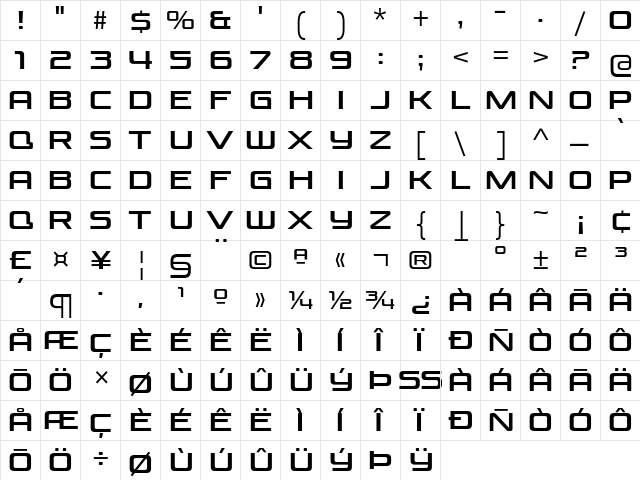
Venus Rising Regular
Design Context for Venus Rising Typeface
Venus Rising is a composed and adaptable typeface that performs quietly and consistently across a wide range of design contexts.